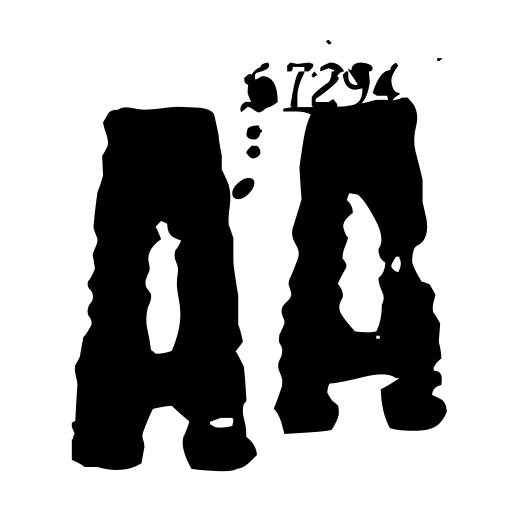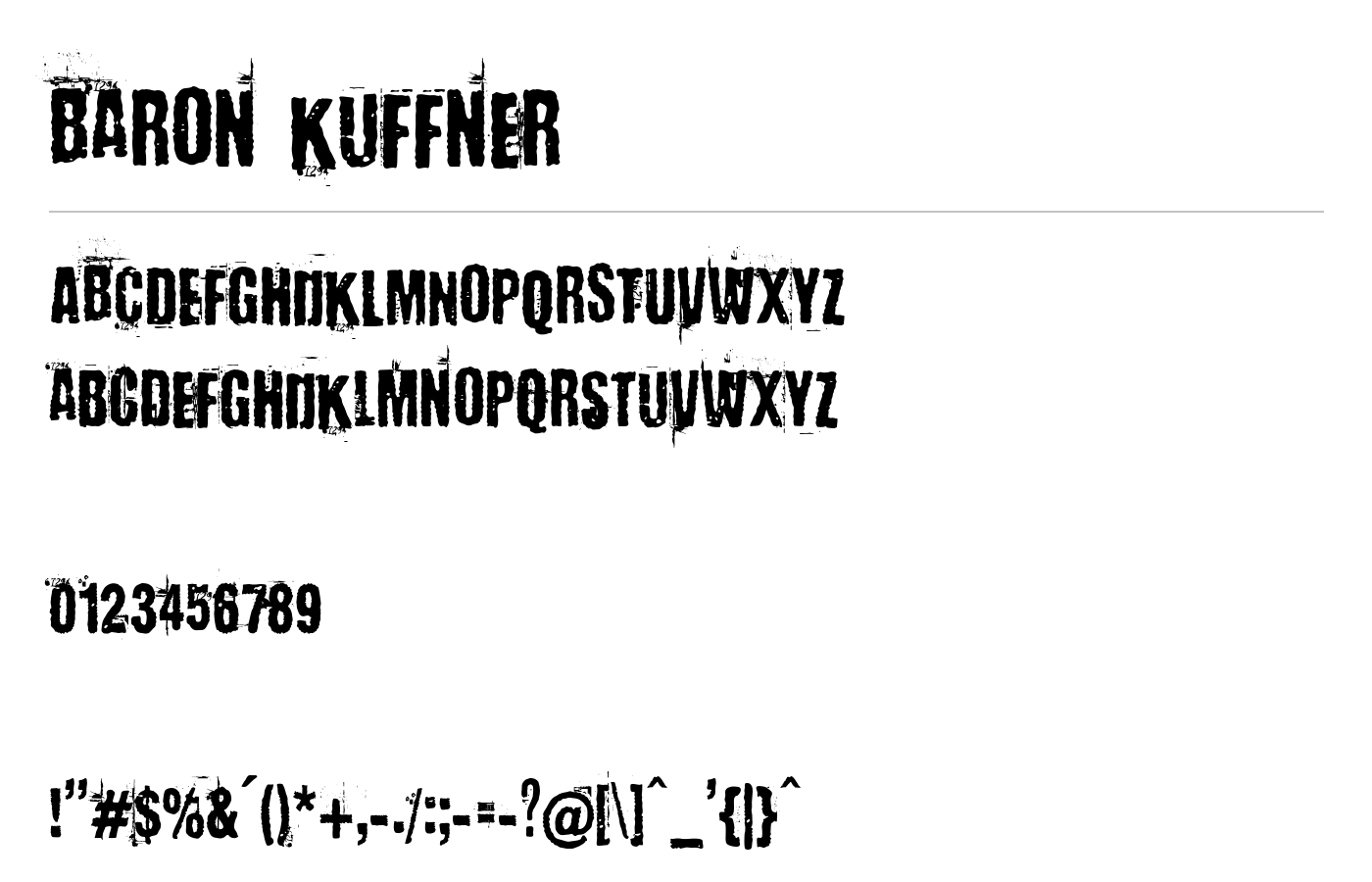
Baron Kuffner is a bold, condensed display font with a distressed, grunge texture that gives it a raw, rugged personality. Its uppercase-only design, rough edges, and uneven ink spots create a vintage, industrial feel perfect for striking headlines or branding that aims to convey strength and attitude. This font works well for posters, logos, and projects needing a bold, edgy look with a hint of weathered charm.
Baron Kuffner Font
About Baron Kuffner Font